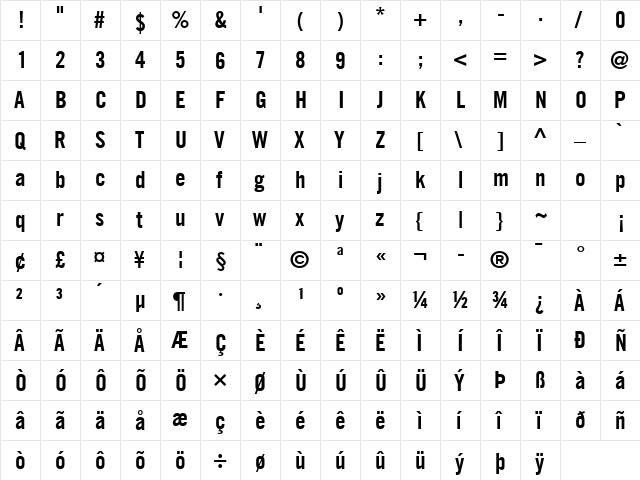
Trade Gothic LT Com Bold Condensed No. 20 Font Preview
| Foundry | Linotype GmbH |
| Designer | Jackson Burke |
Design Context for Trade Gothic LT Com Typeface
Trade Gothic LT Com takes a clean, functional approach — its unadorned letterforms prioritise legibility and work reliably across screen and print environments. Its bold stroke weight gives it real presence on the page. Its narrow stance lets it pack a punch even in space-constrained designs.
Well-suited to navigation labels, product packaging, and anywhere legibility at scale is essential.
Font Pairing: Use Trade Gothic LT Com for headlines alongside a lighter-weight sans or serif for body copy to establish clear visual hierarchy.
Pro Tip: Use Trade Gothic LT Com tightly set in headlines and banners — its condensed proportions make it ideal for maximum impact in minimum horizontal space.